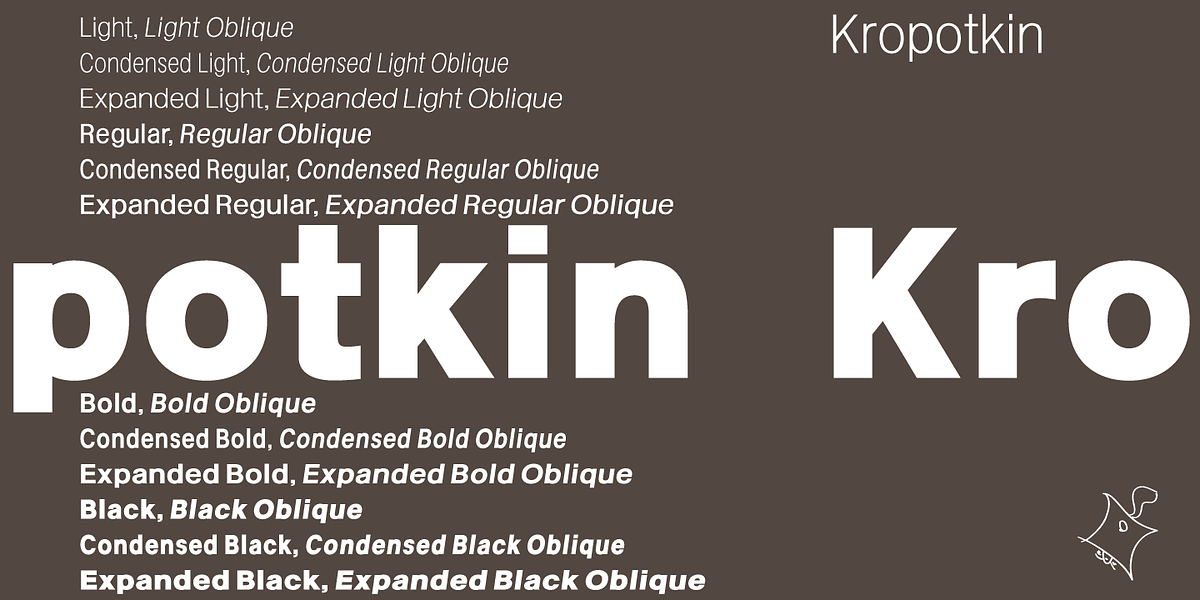
Kropotkin
Kropotkin is a grotesque sans-serif typeface inspired by old lettering manuals of Japan. The designer aimed to create a modern interpretation of the classic style while maintaining its essence. To achieve this, they focused on creating delicate light and regular weights with equal stroke length and breadth, while bold and black weights were designed to convey a powerful impression. This results in a versatile font suitable for both text and display purposes.